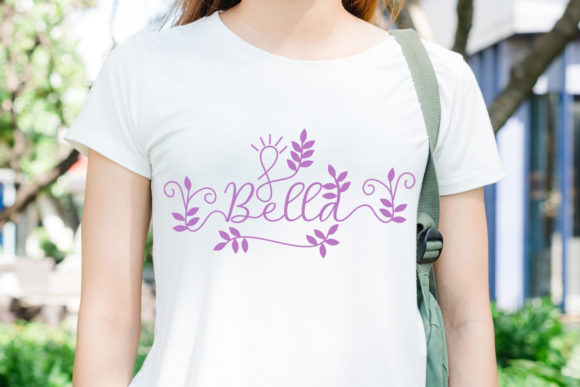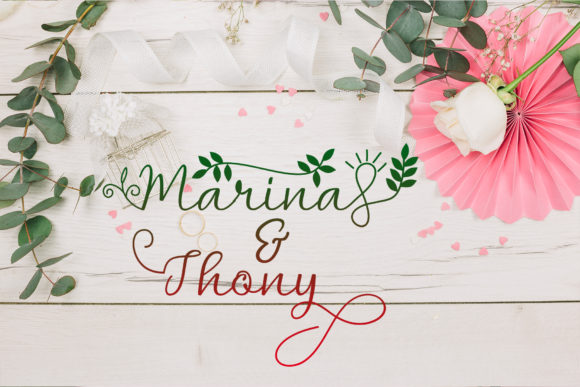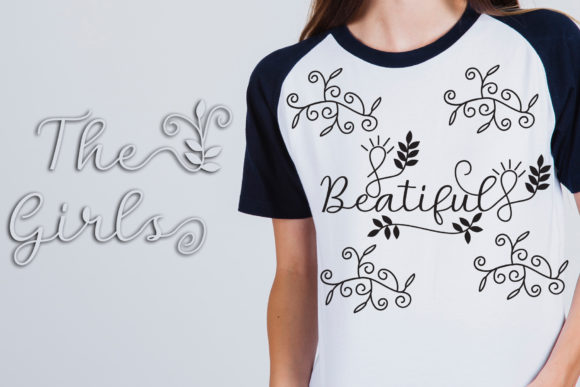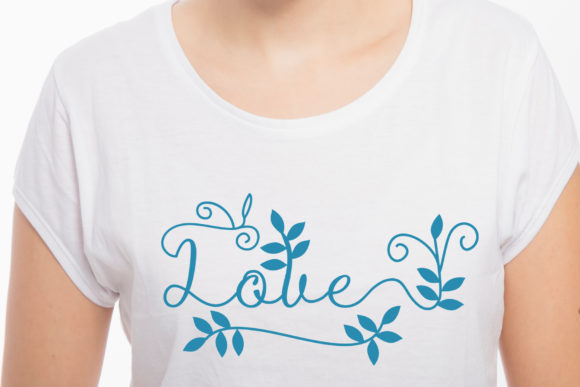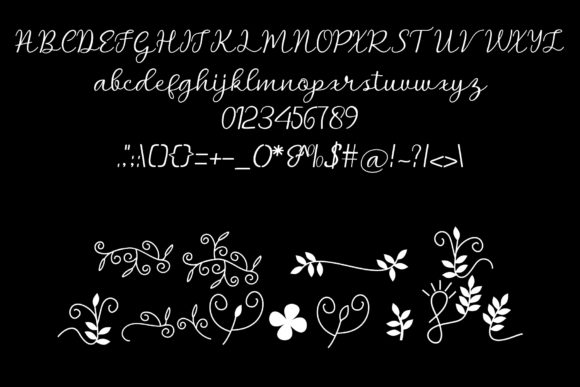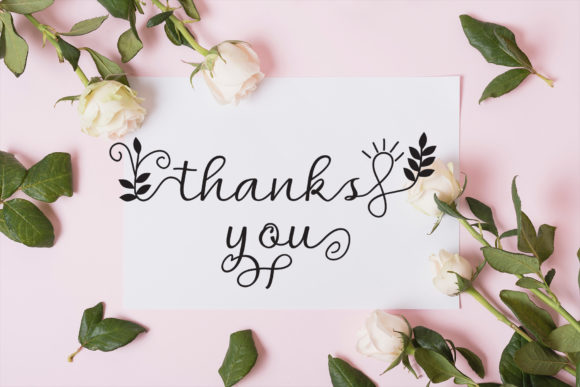
Bella Script Font
About Bella Script Font
Bella combines a natural writing style with beautiful ornaments. Inspired by leaves, it will add an organic charm to any design idea!